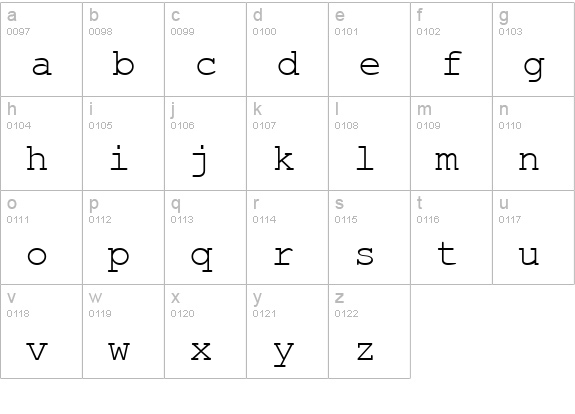
Courier Mon Font Details
Courier Mon font is a classic and timeless typeface that exudes a sense of professionalism and efficiency. With its monospaced design and clean lines, this font is perfect for any project that requires a clean and organized look. Whether you are working on a business document, coding, or simply want to add a touch of retro charm to your designs, Courier Mon font is the perfect choice. The best part is that Courier Mon font is completely free to download at FontsMarket.com. You can easily access this versatile and reliable font without any cost, making it a valuable addition to your font library. Download Courier Mon font today and elevate your projects with its distinctive style and legibility.